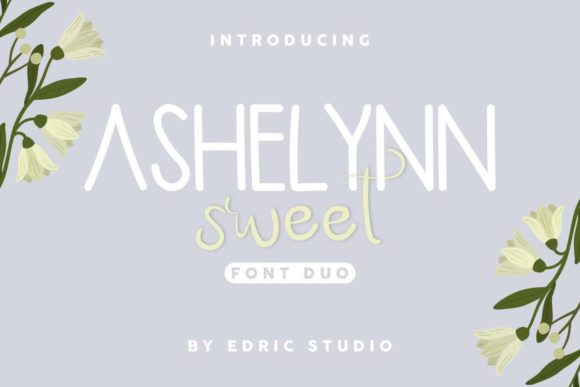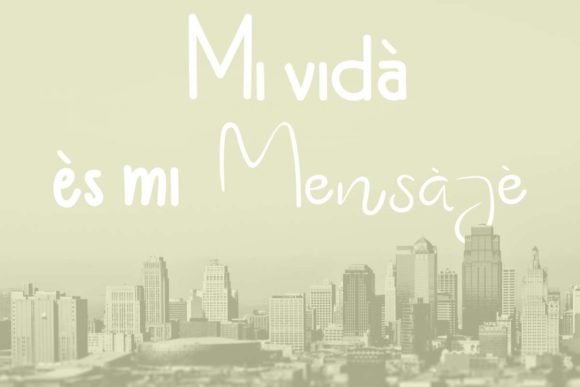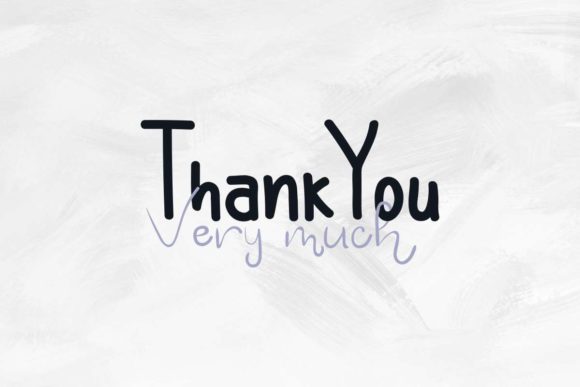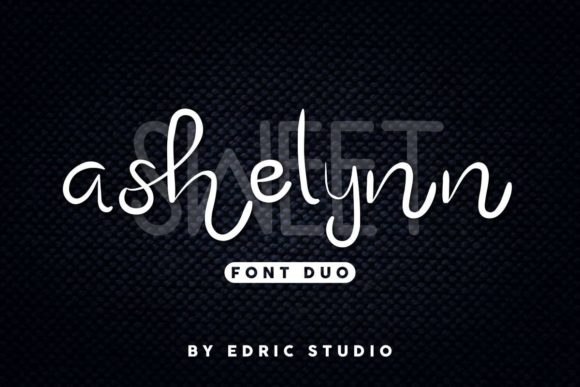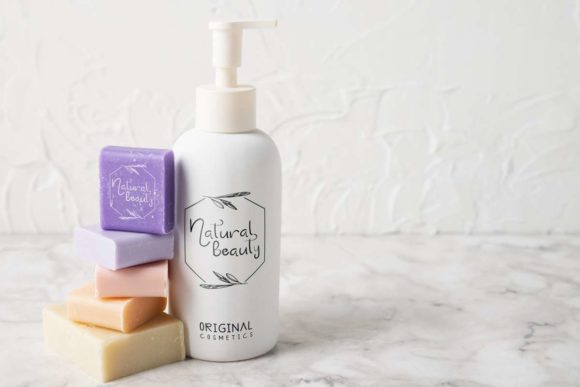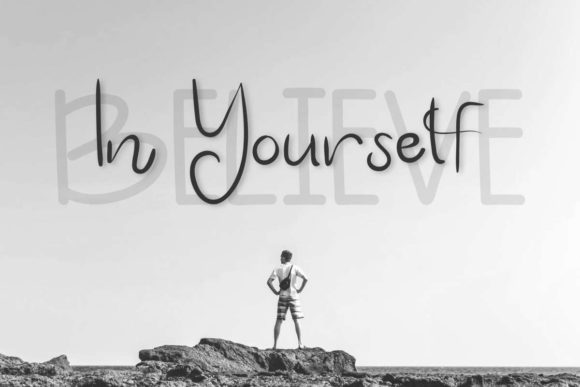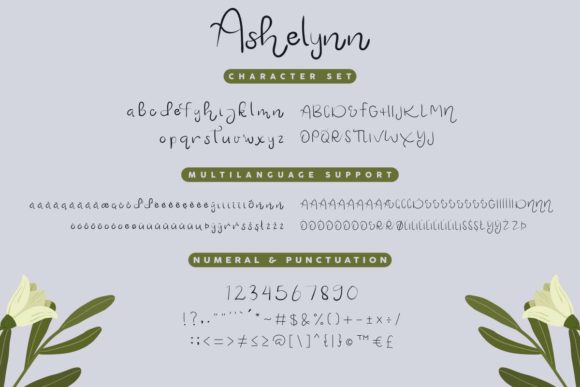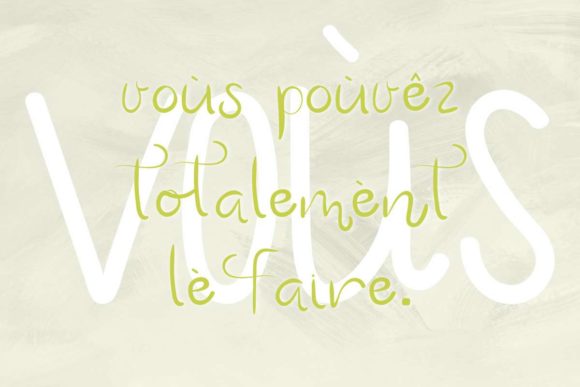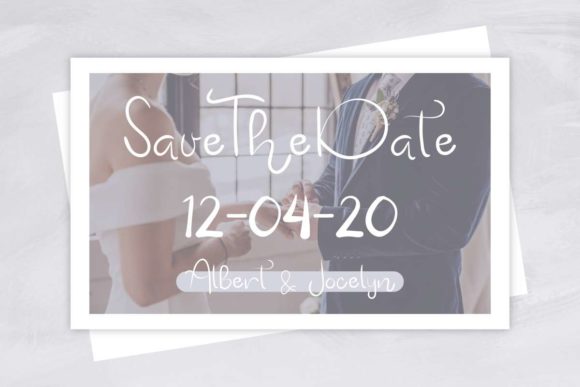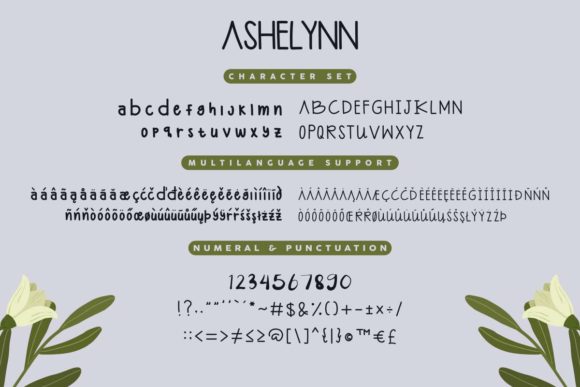
Ashelynn Duo Font
About Ashelynn Duo Font
Ashelynn duo is a match made in heaven, the letters of the script perfectly complement the sans’s style. Combining these two fonts on your next design will give your next design a playful and elegant feel.
This versatility means that this font can be used in a wide variety of applications from branding to headlines – the only limit is your imagination!